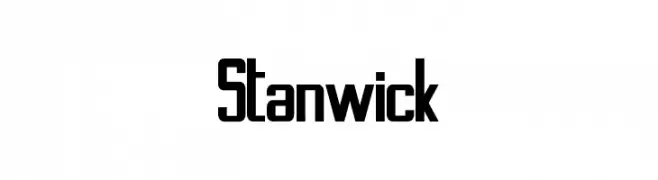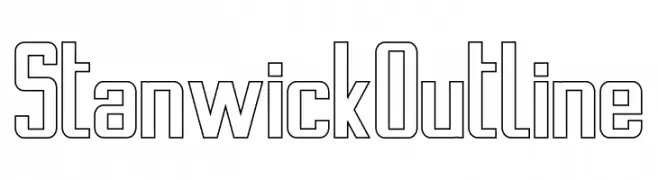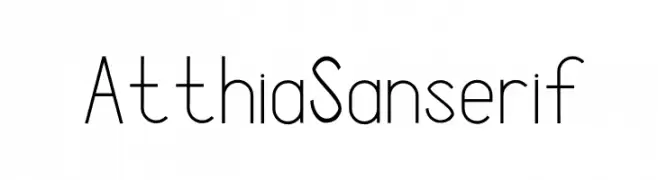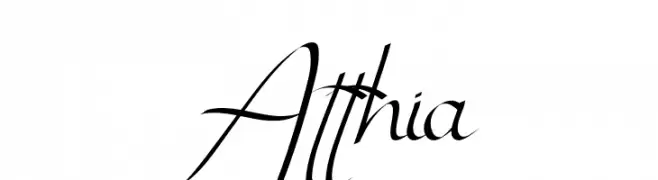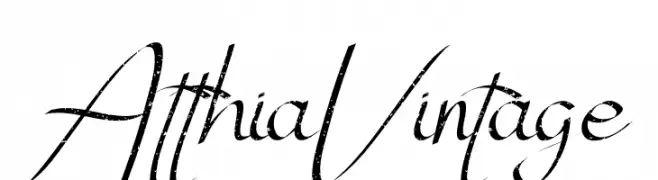
A flowing, elegant calligraphy-style font with dramatic curves and high contrast.
A bold, geometric font with a modern and structured design.
A modern, geometric outline font with clean lines and a structured form.
A modern, geometric sans-serif font with a sleek and minimalist design.
A fluid and elegant script font with sweeping curves and graceful lines.
A vintage script font with elegant, flowing characters and a distressed texture.
A bold, rounded font with smooth curves and a playful style.
A playful, balloon-inspired font with a three-dimensional, puffy appearance.
A bold, 3D font with geometric shapes and a modern, dynamic style.
A bold, geometric font with a modern and clean design.